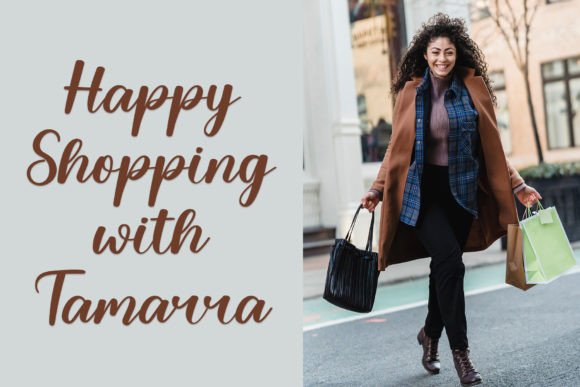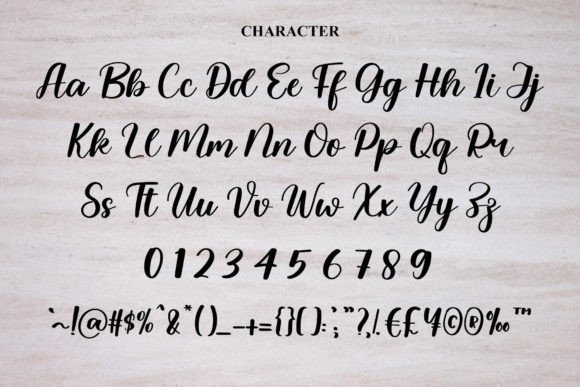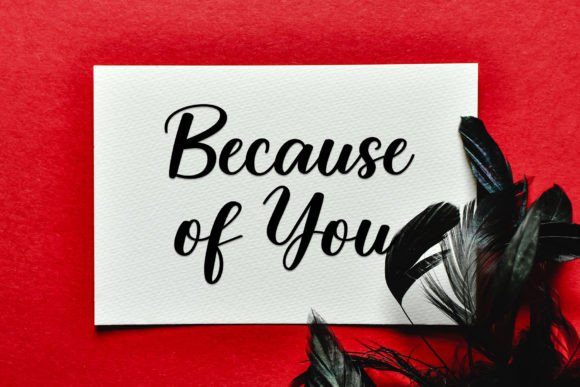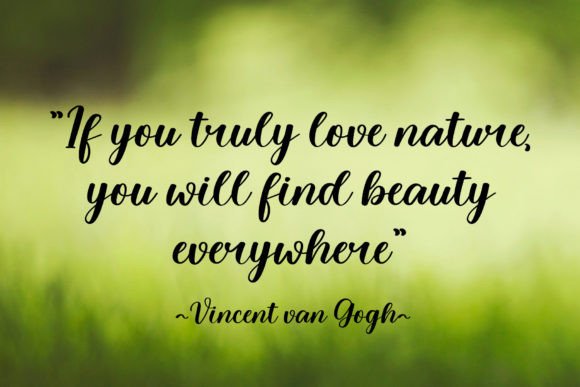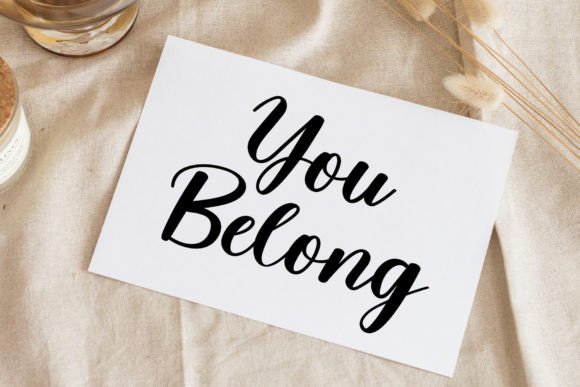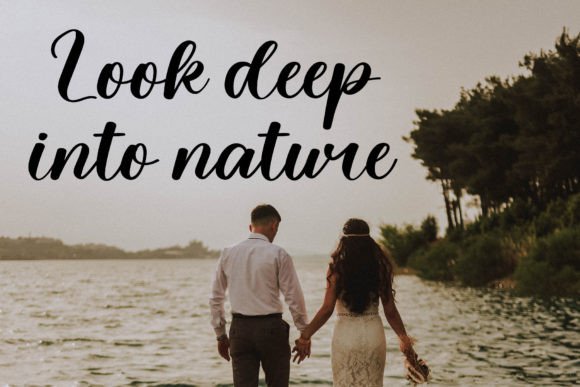
Introducing Flamingo Font: The Elegant and Timeless Choice for Your Design Projects
Are you looking for a font that exudes elegance and sophistication? Look no further than Flamingo Font, a beautiful handwritten font that is sure to capture your heart. With its incredibly distinct and timeless style, Flamingo Font is perfect for designers and crafters who want to add a touch of class to their projects.
The Characteristics of Flamingo Font
Flamingo Font is a neat and beautiful handwritten font that is described by an elegant touch. Its unique and refined style makes it stand out from other fonts, and its versatility ensures that it can be used in a wide range of design projects. Whether you’re creating a logo, a poster, or a social media graphic, Flamingo Font is sure to make your design look stunning.
The Benefits of Using Flamingo Font
So, why should you choose Flamingo Font for your design projects? Here are just a few benefits of using this amazing font:
- Elegant and sophisticated: Flamingo Font has an undeniable air of elegance and sophistication that will elevate your designs and make them look more professional.
- Unique and distinctive: With its incredibly distinct style, Flamingo Font is sure to make your designs stand out from the crowd and grab attention.
- Versatile: Flamingo Font can be used in a wide range of design projects, from logos and posters to social media graphics and more.
- Timeless: Unlike trendy fonts that quickly go out of style, Flamingo Font has a timeless quality that ensures it will remain stylish and relevant for years to come.
How to Use Flamingo Font in Your Design Projects
Using Flamingo Font in your design projects is easy. Here are a few tips to get you started:
- Pair it with other fonts: Flamingo Font pairs well with other fonts, so don’t be afraid to experiment with different combinations to create a unique look.
- Use it for headings and titles: Flamingo Font is perfect for headings and titles, where its elegant and sophisticated style can really shine.
- Add some flair: Use Flamingo Font to add some flair to your designs, such as in graphics, logos, or social media posts.
Who Can Benefit from Using Flamingo Font?
Flamingo Font is perfect for a wide range of designers and crafters, including:
- Graphic designers: Whether you’re creating logos, posters, or social media graphics, Flamingo Font is a great choice for adding a touch of elegance to your designs.
- Crafters: If you’re creating handmade cards, gift tags, or other paper crafts, Flamingo Font is a beautiful choice for adding a personal touch.
- Small business owners: If you’re looking for a font that will help your brand stand out, Flamingo Font is a great choice for creating a professional and stylish image.
In conclusion, Flamingo Font is a beautiful and elegant handwritten font that is perfect for designers and crafters who want to add a touch of class to their projects. With its incredibly distinct and timeless style, Flamingo Font is sure to make your designs stand out and grab attention. So why not give it a try and see the difference it can make in your design projects?
So, fall in love with Flamingo Font and use it to create spectacular designs that will leave a lasting impression!